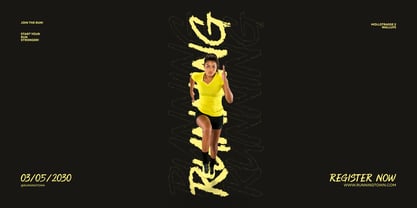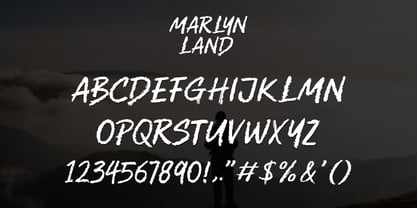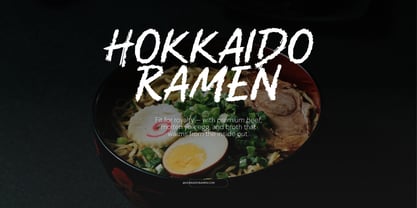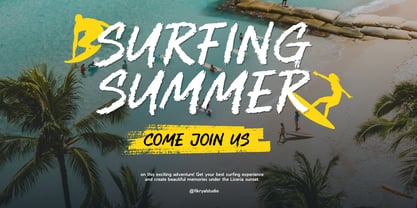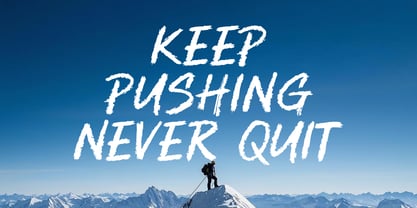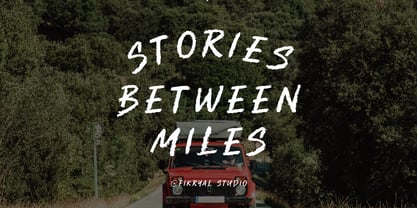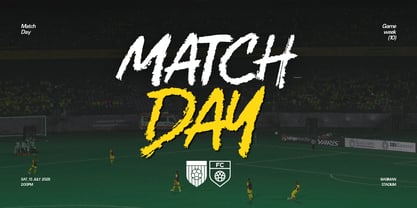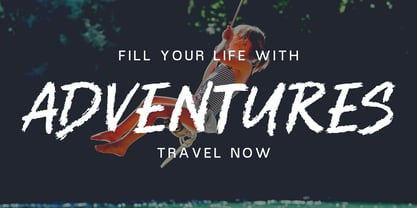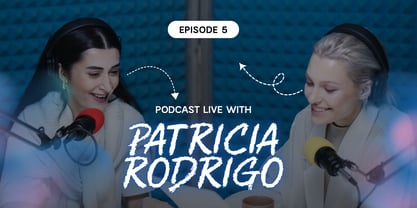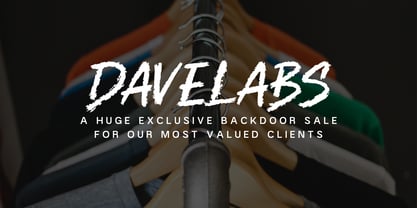
Marlyn land
by Fikryal
The Marlyn land Font Family was designed by Muhammad Fikry and published by Fikryal. Marlyn land contains 1 styles. More about this family
Marlyn Land Brush Font is a bold all-caps brush typeface that infuses raw energy, handcrafted texture, and expressive personality into your designs. Drawing inspiration from authentic brush lettering, this font showcases a natural painted appearance with strong strokes, rough edges, and dynamic movement, making every word feel powerful and alive. Ideal for branding, logo design, posters, apparel, packaging, headlines, merchandise, social media graphics, sports designs, and editorial projects, Marlyn Land delivers striking visual impact while ensuring readability. Its uppercase-only style exudes confidence and consistency, perfect for creating bold statements and eye-catching typography. Crafted with an organic brush texture, Marlyn Land is perfect for projects that require a rugged, energetic, urban, or rebellious vibe. Whether designing for streetwear branding, music artwork, action-themed posters, or bold product packaging, this font adds an authentic handcrafted touch to every composition. Features include: All Caps Brush Font, Natural Hand-Painted Style, Bold and Expressive Character, Perfect for Logos, Posters, Apparel, Packaging & Branding, Ideal for Streetwear, Sports, Music, and Urban Designs, and Multilingual Support. Bring powerful brush lettering aesthetics into your work with Marlyn Land – Brush Font, a typeface designed to stand out with confidence and attitude.
Designers: Muhammad Fikry
Foundry: Fikryal